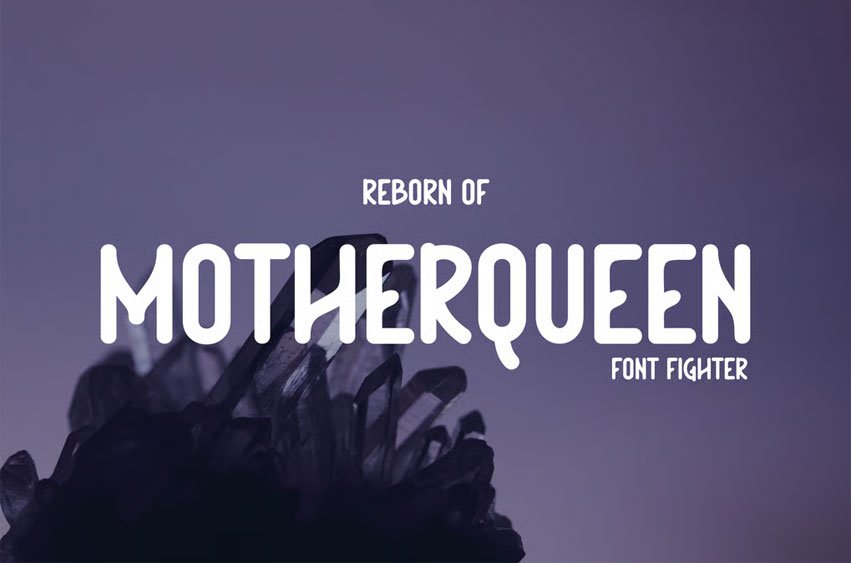
Reborn Motherqueen Font
Reborn Motherqueen Font Simple Large Monoline for fighter or cinema project.
Every letter has a unique and beautiful touch, which will make your design come alive!